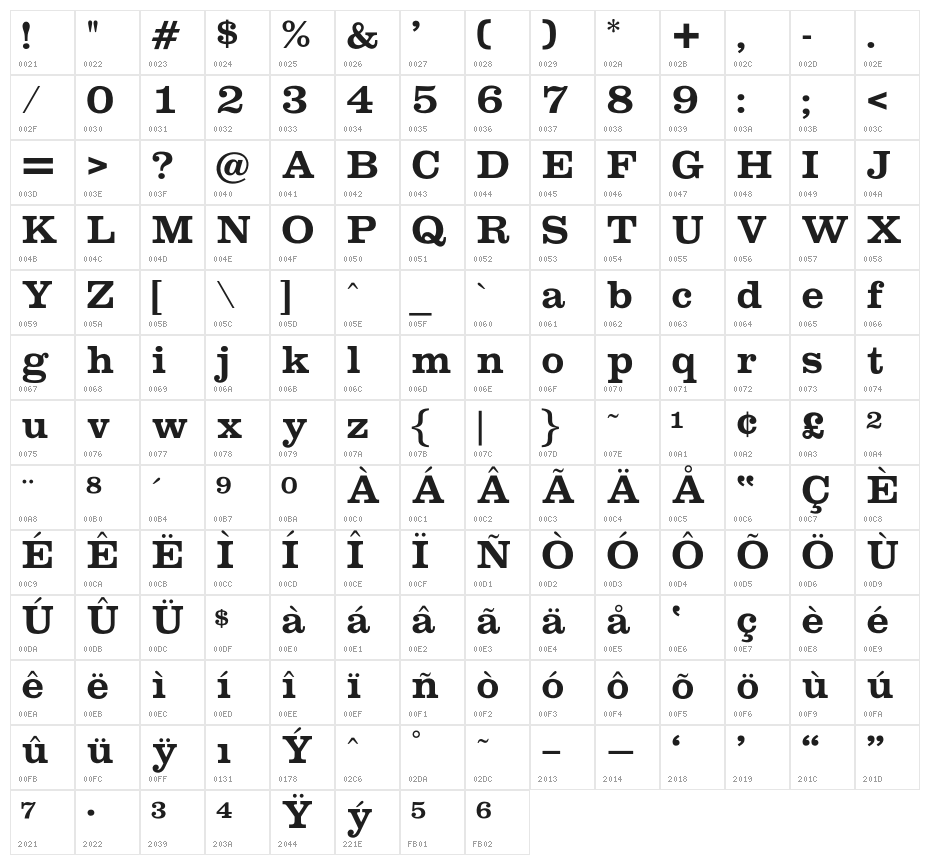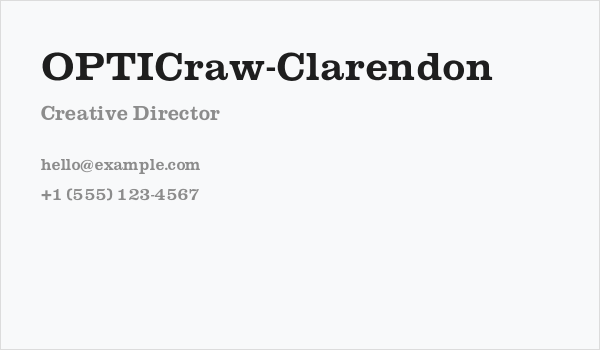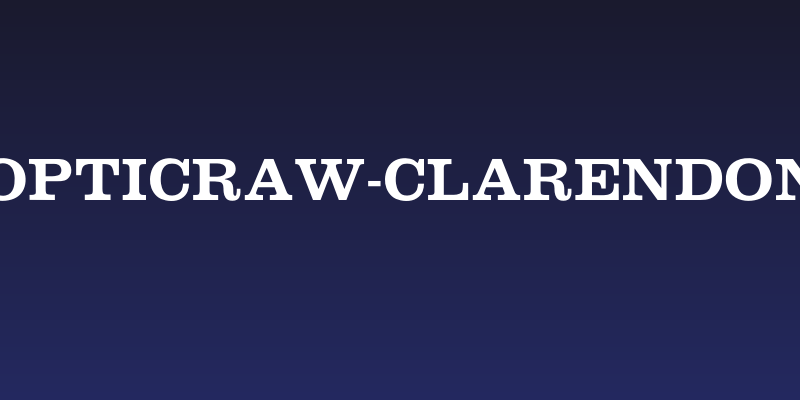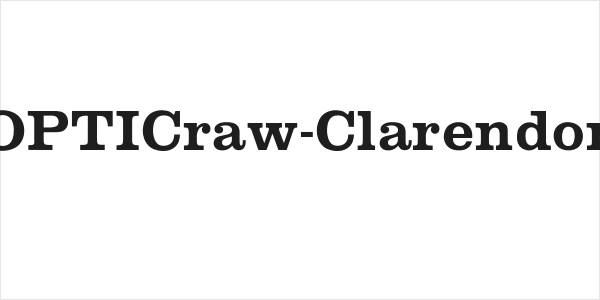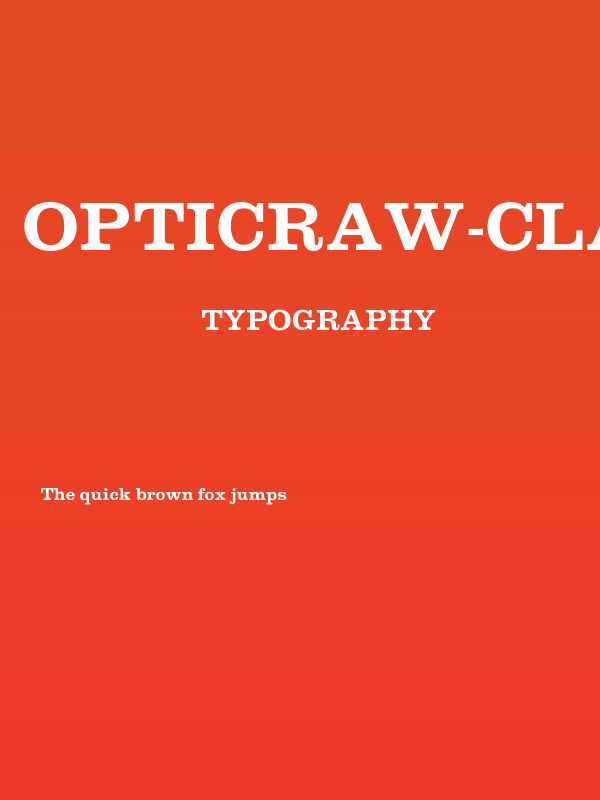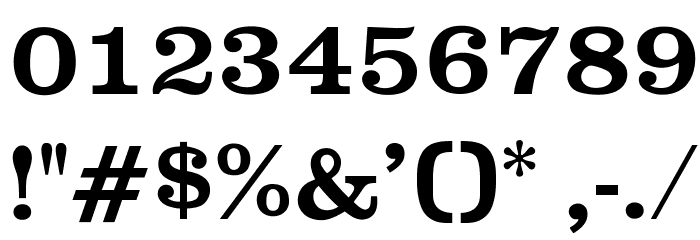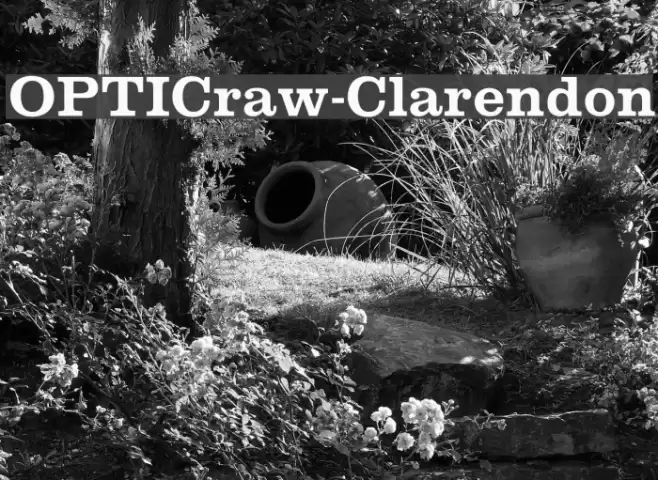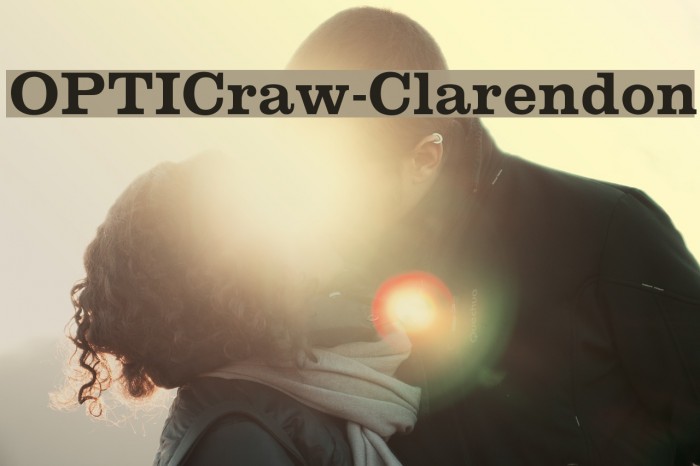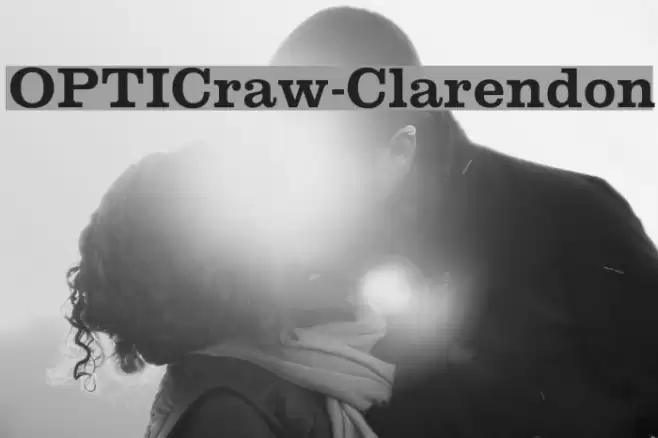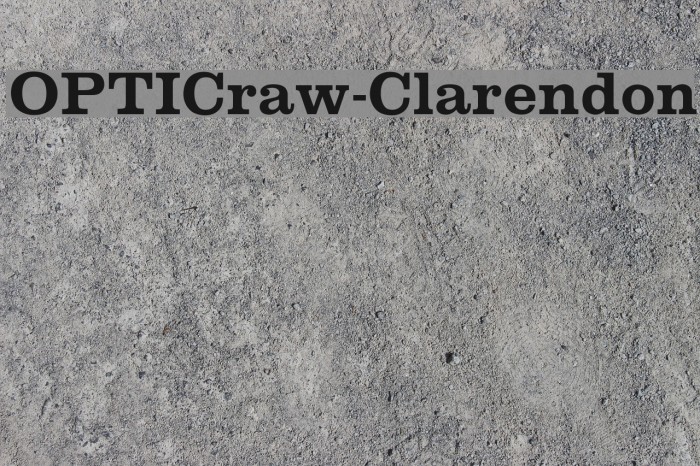
OPTICraw-Clarendon Font
OPTICraw-Clarendon Description
This font features a robust and classic slab serif design, characterized by thick, block-like serifs that provide a strong and authoritative presence. The uppercase letters are bold and commanding, while the lowercase letters maintain a consistent weight, offering a harmonious balance. The numerals are clear and easily distinguishable, making them suitable for various applications. Special characters are well-defined, adding versatility to the font's usage. The overall appearance is both traditional and modern, making it adaptable for a wide range of design projects.
| Overall Style | Classic |
| Use Case | Headlines, Logos, Editorial Design |
| Proposed Projects | Ideal for editorial design, branding, signage, and any project requiring a bold, authoritative typeface. |